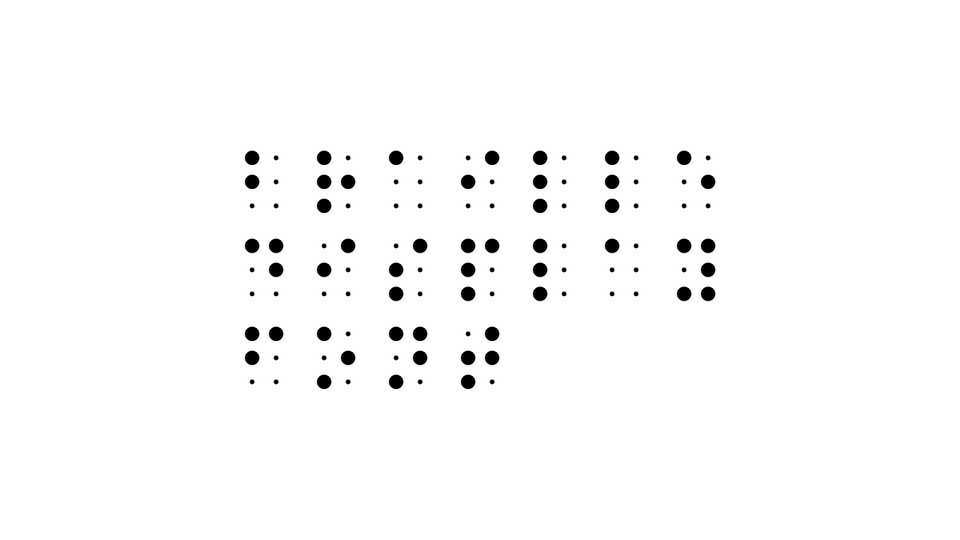
Braille Display Font › Fontesk – Download Grátis
Download Braille Display font, a tactile typeface based on the universal system of raised dots used by visually impaired readers around the world.